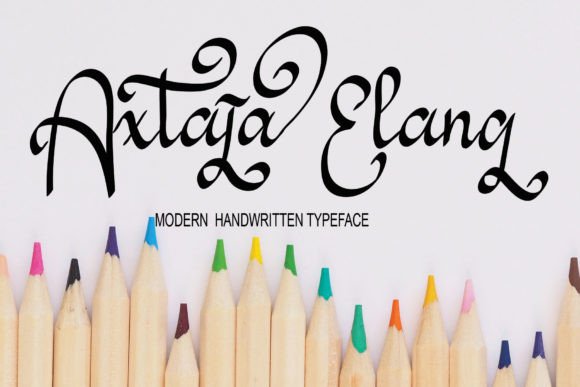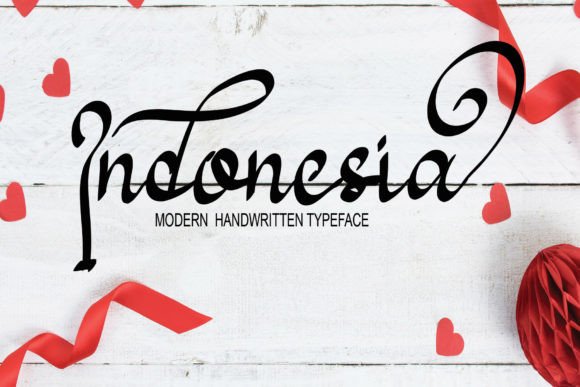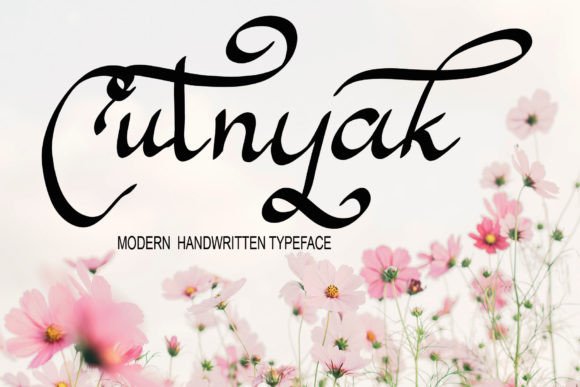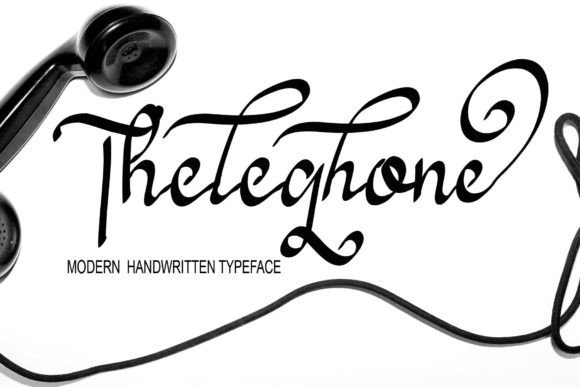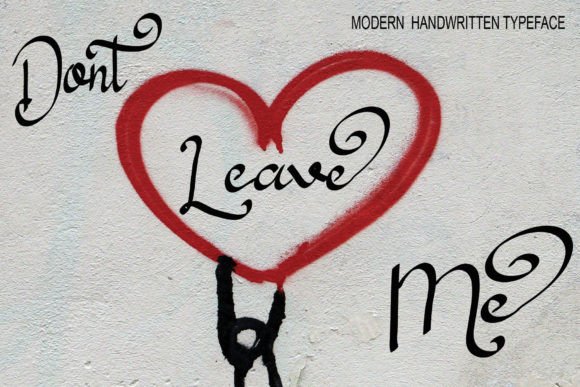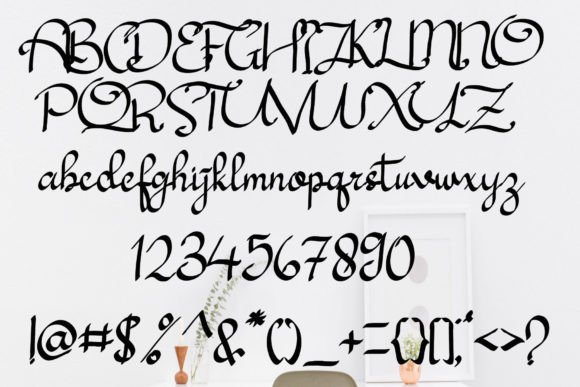
About Axtaja Elang Font
**Axtaja Elang** is a contemporary and stylish script font that adds a touch of modernity and a hint of quirkiness to your designs. This font’s unique character makes it an excellent choice for projects that require a blend of style and playfulness.
With its clean and stylish letterforms, **Axtaja Elang** brings a sense of contemporary flair to your creative endeavors. It can be a valuable asset for a wide range of design applications, from branding and logo design to advertisements, posters, and more.
One of the standout qualities of **Axtaja Elang** is its ability to infuse your designs with a sense of personality. The font’s quirky charm invites your audience to engage with your creative ideas in a way that’s both visually appealing and playful. Whether you’re crafting a bold logo, designing an eye-catching poster, or adding a touch of whimsy to your branding materials, this font adapts effortlessly to diverse design contexts.
The font’s appeal extends from digital platforms to print media, making it a versatile choice for a variety of projects. Whether it graces the pages of a sleek website or adds a touch of character to a printed poster, **Axtaja Elang** maintains its modern and stylish presence in every setting.
**Axtaja Elang** combines readability with a dash of personality, ensuring that your message is conveyed clearly while also making a visual impact. Its clean lines and contemporary aesthetics make it a great choice for designers looking to create fresh and engaging visuals.
In conclusion, **Axtaja Elang** is a font that bridges the gap between modern style and playful quirkiness. Embrace its unique character, and let it inspire you to create designs that are not only stylish but also infused with a sense of fun. With **Axtaja Elang** as part of your creative toolkit, you have the flexibility to craft designs that are contemporary, engaging, and visually captivating.